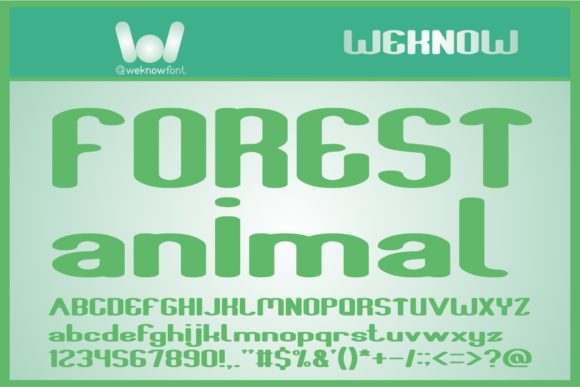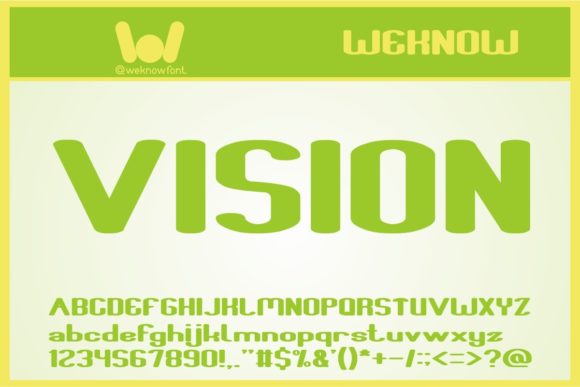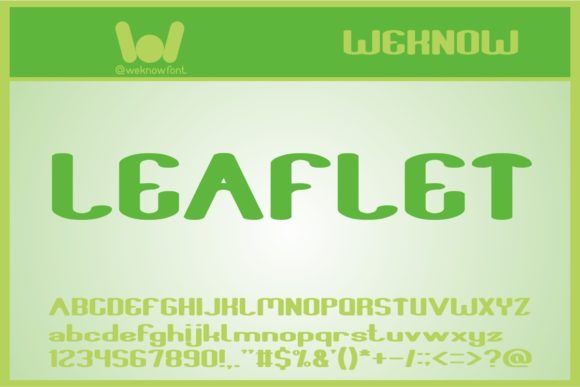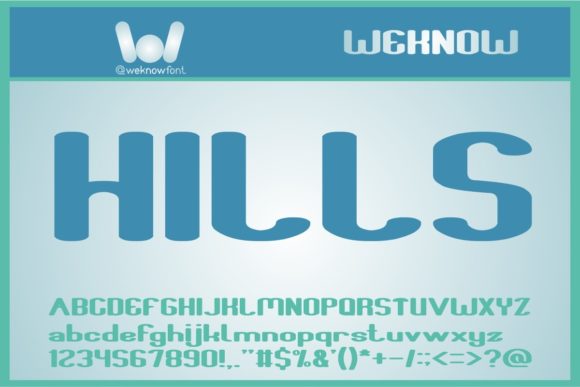
The Ultimate Design Game-Changer: Fun Raiser Font
Have you ever been in the middle of a design project, pouring your heart and soul into it, only to hit a roadblock when it comes to finding the perfect font? I certainly have. It was during one of those moments, working on a branding project for a trendy new coffee shop, that I stumbled upon the Fun Raiser Font. It was like a breath of fresh air – a fancy, versatile font that instantly elevated my design and helped me meet my client’s expectations.
An Honest Review of Fun Raiser Font
- ✨ Versatility: Fun Raiser is a various themes font, making it suitable for a wide range of projects, from logos and headlines to posters and social media graphics.
- ✅ Ease of use: This font is incredibly easy to work with, even for those who are new to design or typography.
- 💥 Creativity booster: With its unique and playful style, Fun Raiser Font can add a much-needed creative spark to your projects.
While Fun Raiser Font is an excellent choice for many projects, there are a few things to keep in mind:
- 🤔 Legibility at small sizes: Like many decorative fonts, Fun Raiser can become difficult to read at very small sizes. It’s best used for headlines or titles.
- ⚠️ Overuse: With its bold and playful style, it’s easy to overuse Fun Raiser Font. Balance is key to making the most of its impact.
One of the standout features of Fun Raiser Font is its support for OpenType features, which allow for advanced typographic capabilities. This includes access to:
- Stylistic alternates: Swapping out letters for stylistic variations.
- Glyphs: Accessing additional symbols and icons that can enhance your design.
The Backstory of Fun Raiser Font
While the exact origins of Fun Raiser Font might not be well-documented, it’s clear that it was designed with creativity and versatility in mind. The font’s unique blend of playfulness and sophistication makes it a standout choice for designers looking to add a bit of personality to their work.
| Font Name | Fun Raiser Font |
| Author | weknow |
| What type of projects is Fun Raiser Font best suited for? | Fun Raiser Font is versatile and can be used for a wide range of projects, including logos, branding, posters, social media graphics, and more. |
| Is Fun Raiser Font easy to read? | Fun Raiser Font is designed to be eye-catching and stylish. While it’s best used for headlines and titles where readability at smaller sizes isn’t a concern, it can be a bit challenging to read at very small sizes. |
| Does Fun Raiser Font support OpenType features? | Yes, Fun Raiser Font supports OpenType features, including stylistic alternates and glyphs, which can enhance your typography and design. |